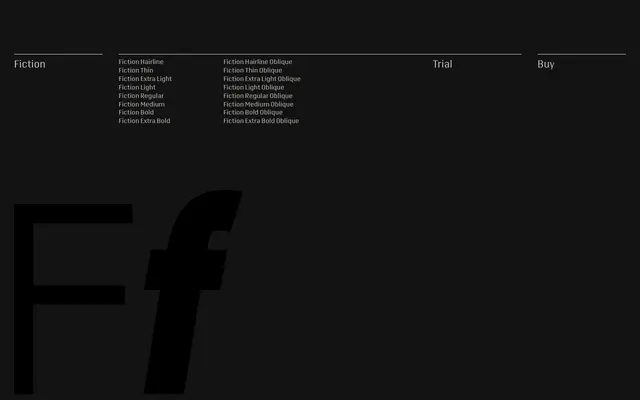
A grotesque sans-serif spanning eight weights from Hairline to Extra Bold, each with an oblique companion, presented through punk-music specimen copy.
Fiction covers an unusually broad weight range from Hairline through to Extra Bold, with sixteen styles in total once obliques are counted. The specimen leans heavily on punk rock lyrics and subculture writing, suggesting an editorial positioning aimed at music, culture and independent publishing contexts. Each weight carries a matching oblique rather than a true italic, keeping the family consistent in structure across the range.
Fiction appears to be a contemporary grotesque sans-serif, offering a wide weight range from Hairline to Extra Bold with oblique companions, consistent with a neutral grotesque structure suited to text and display use.